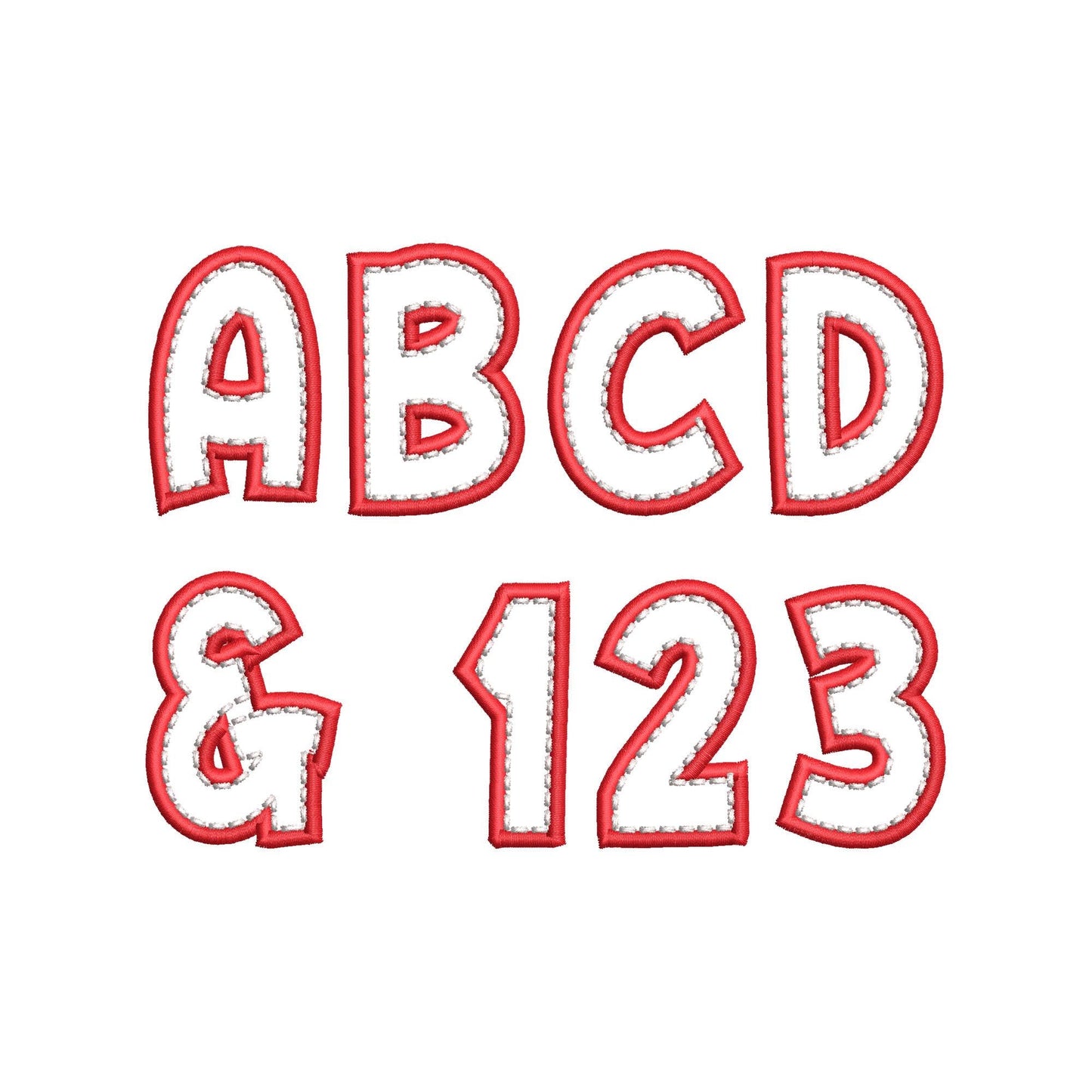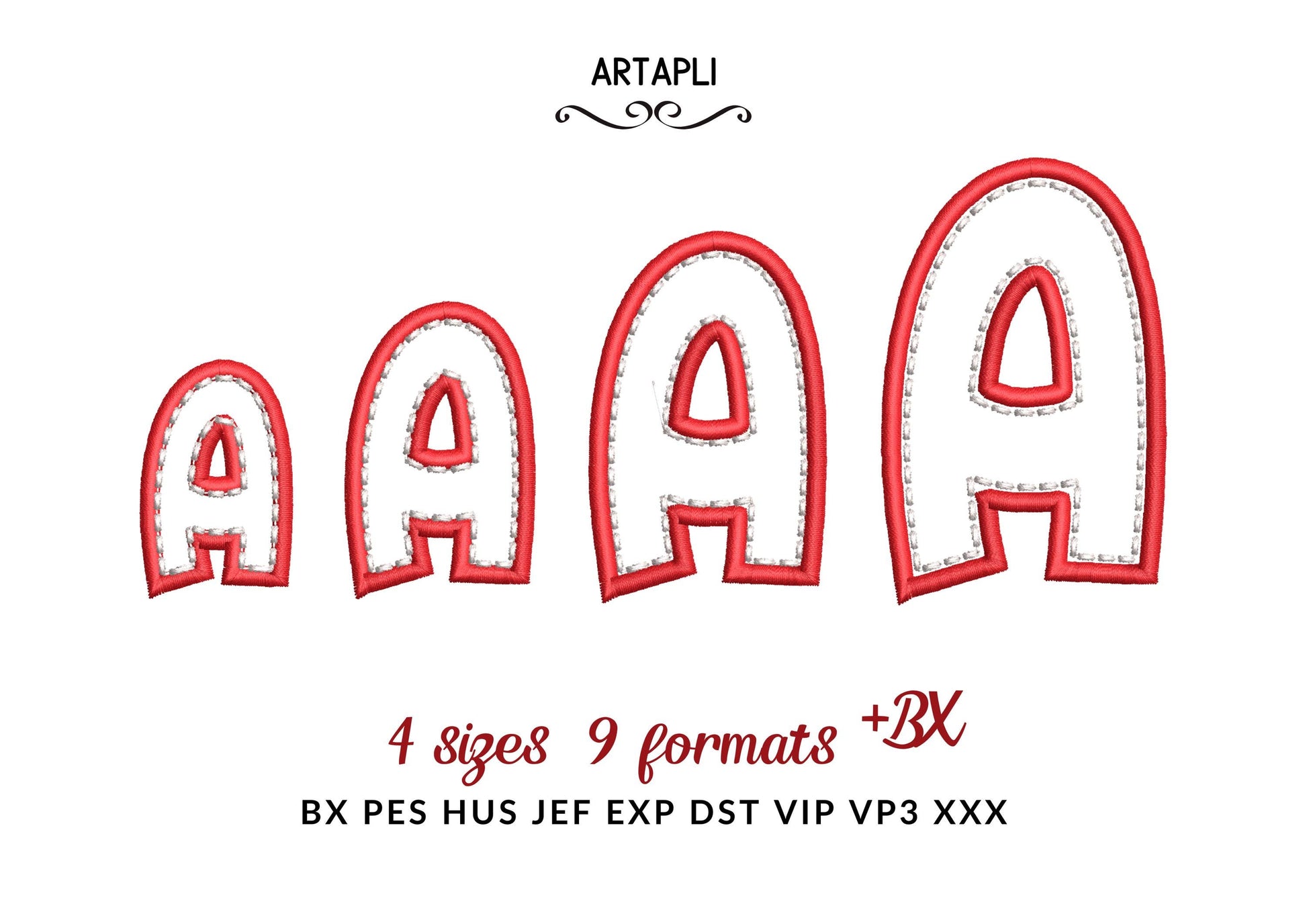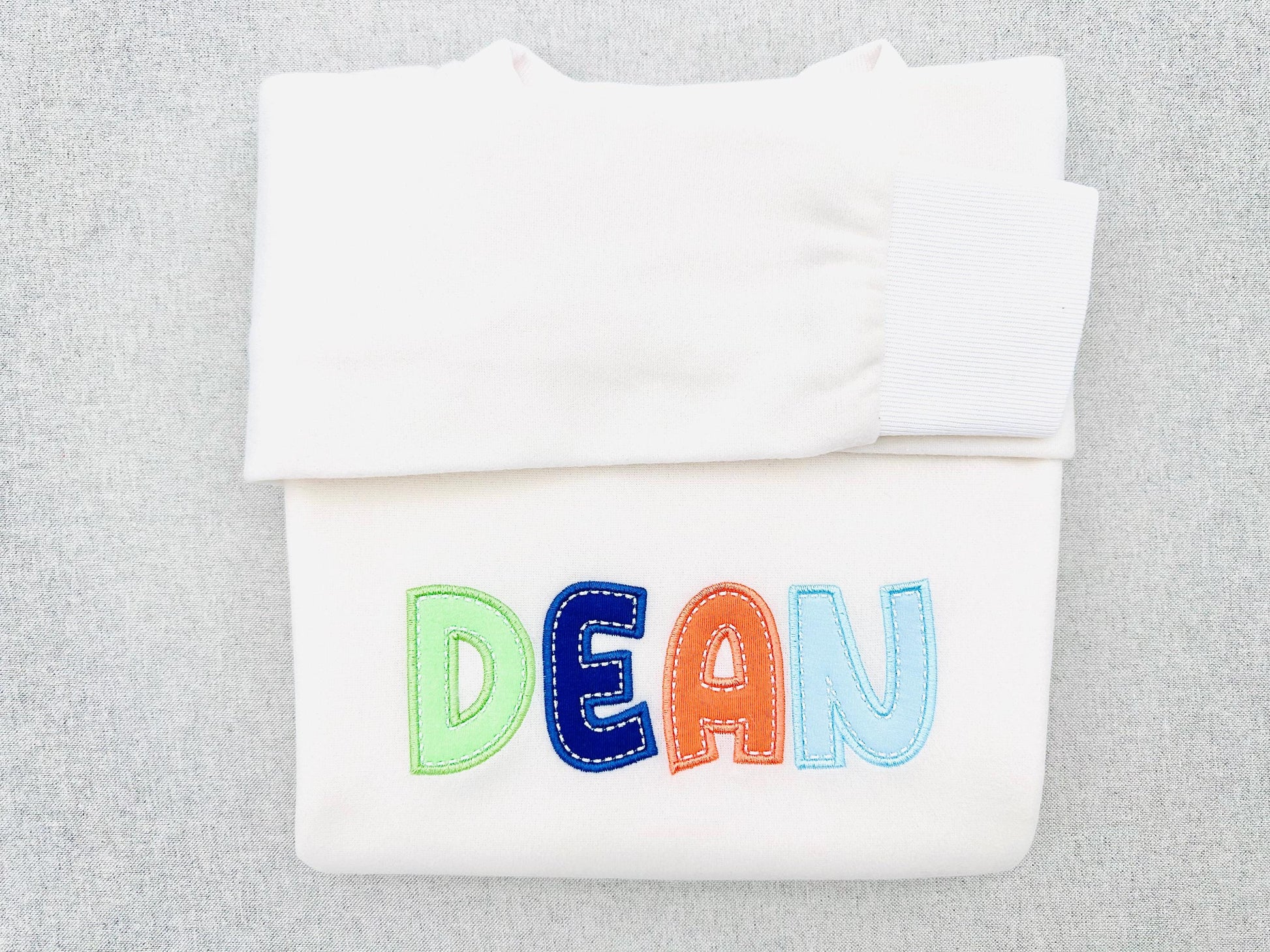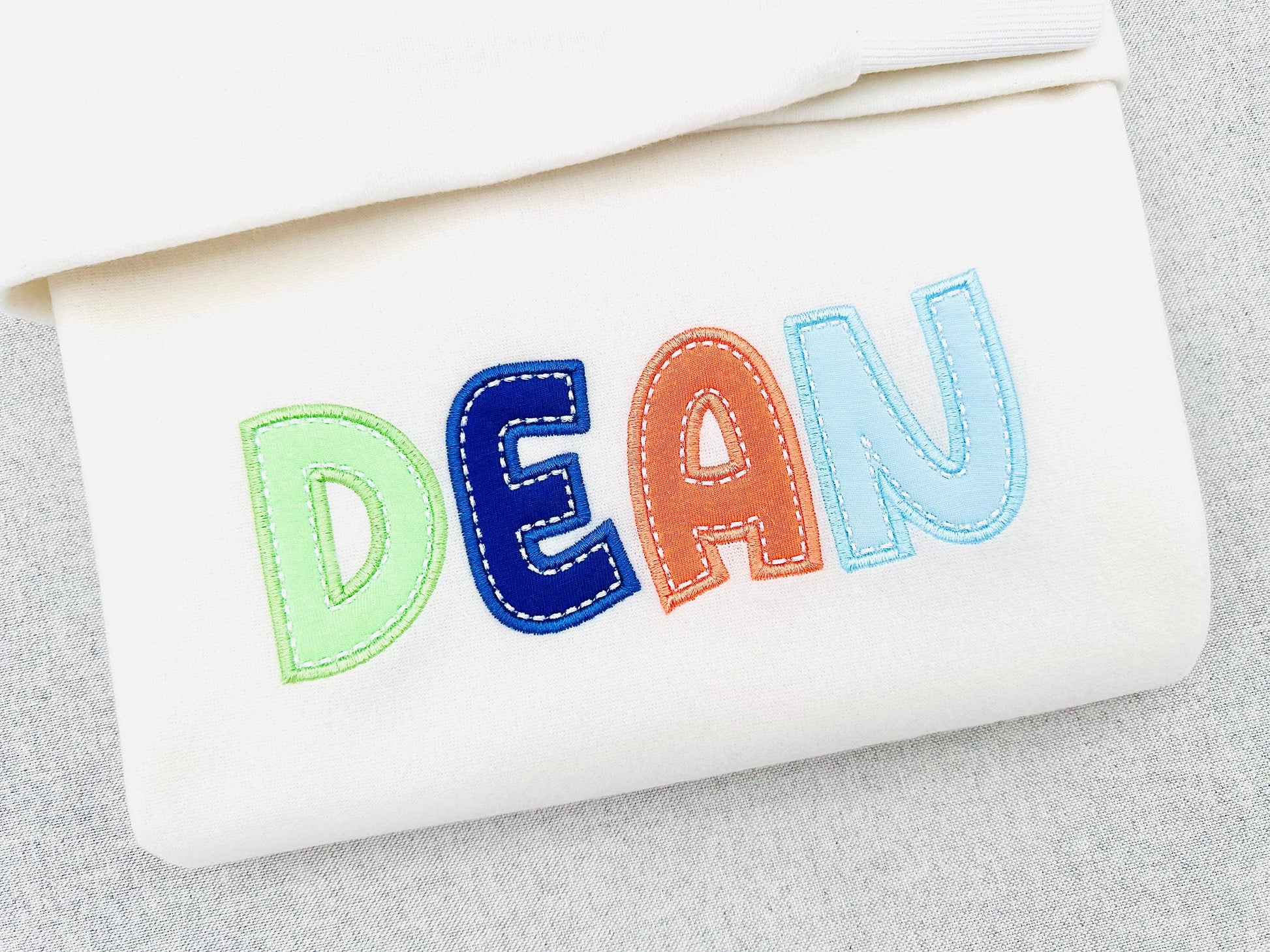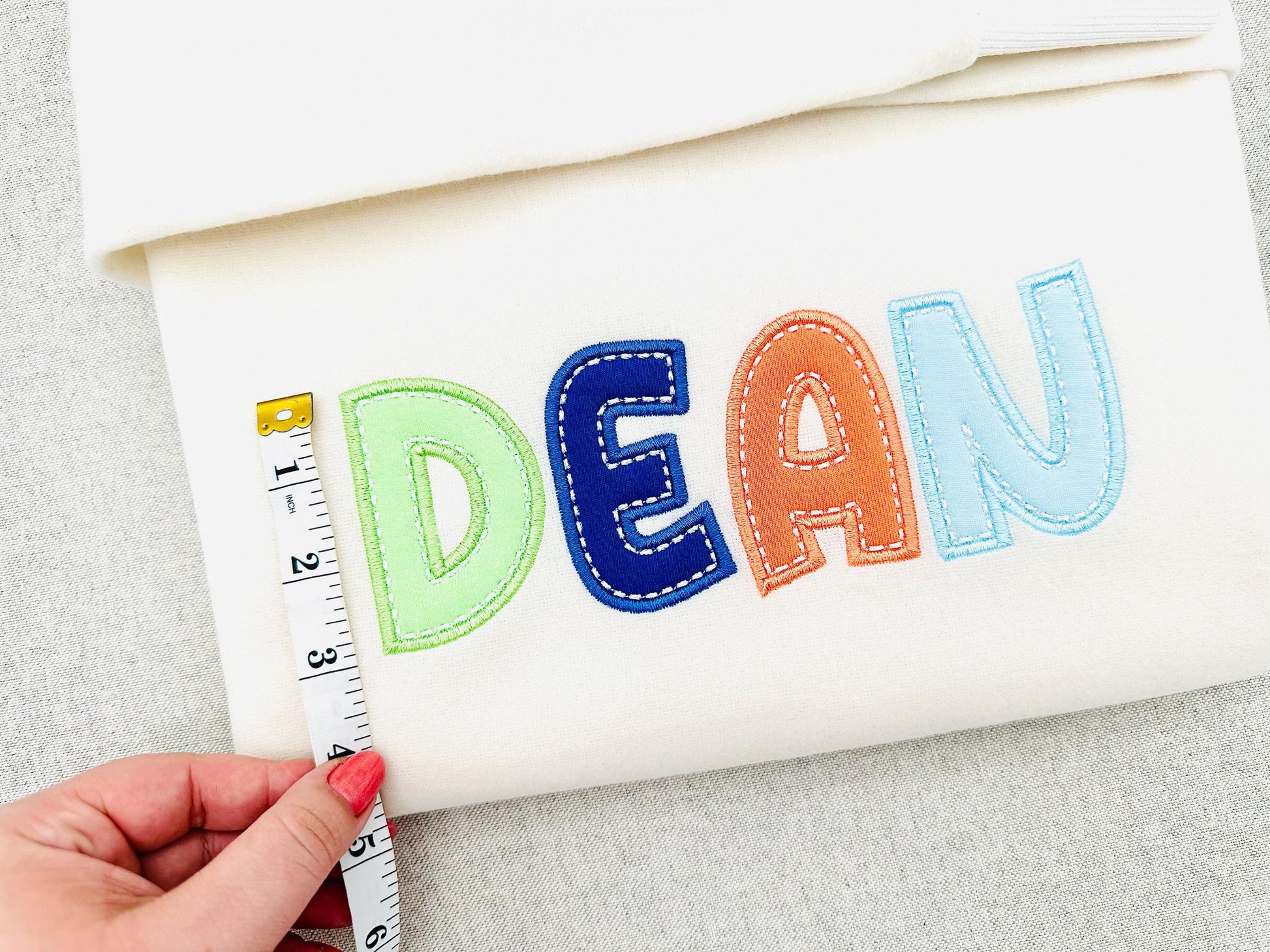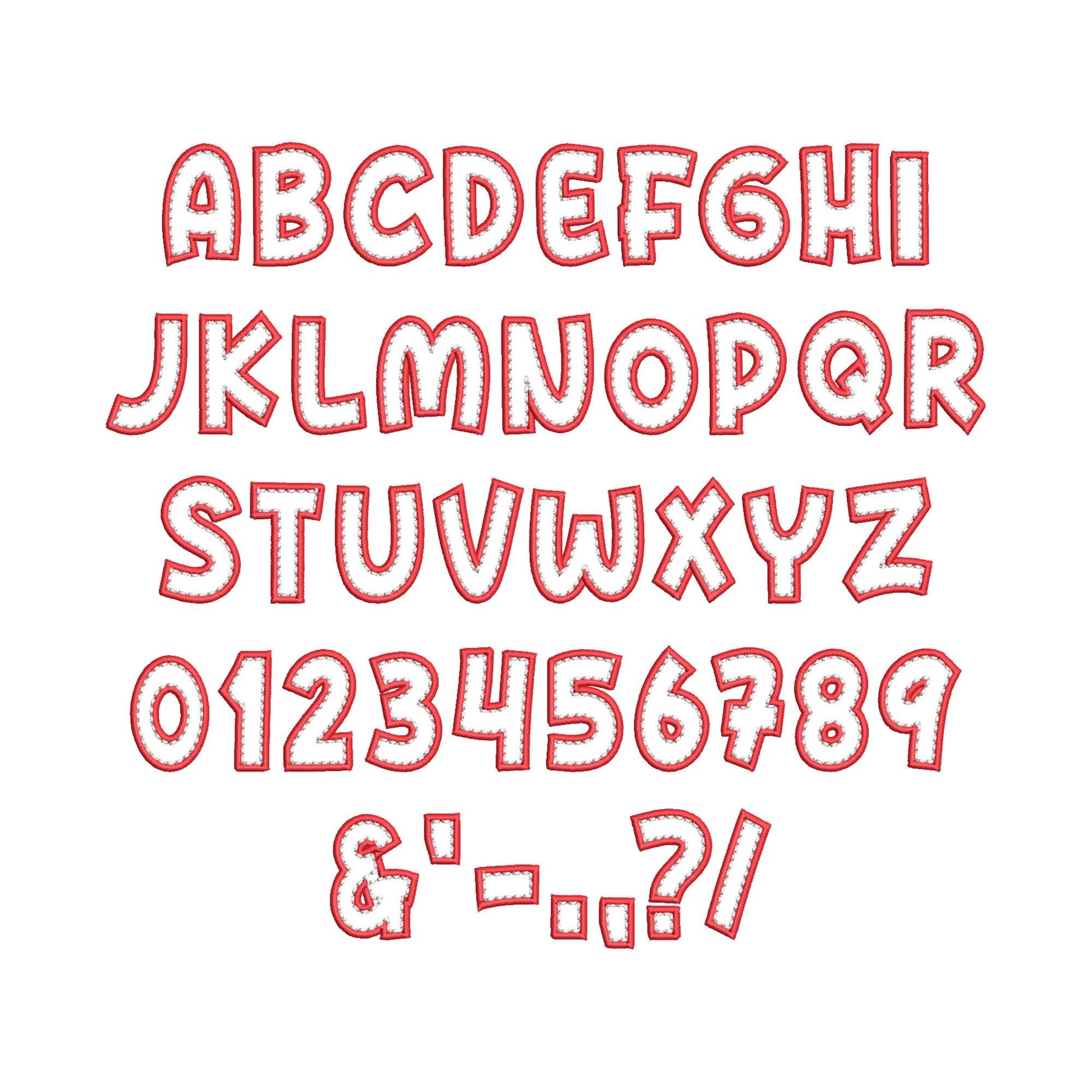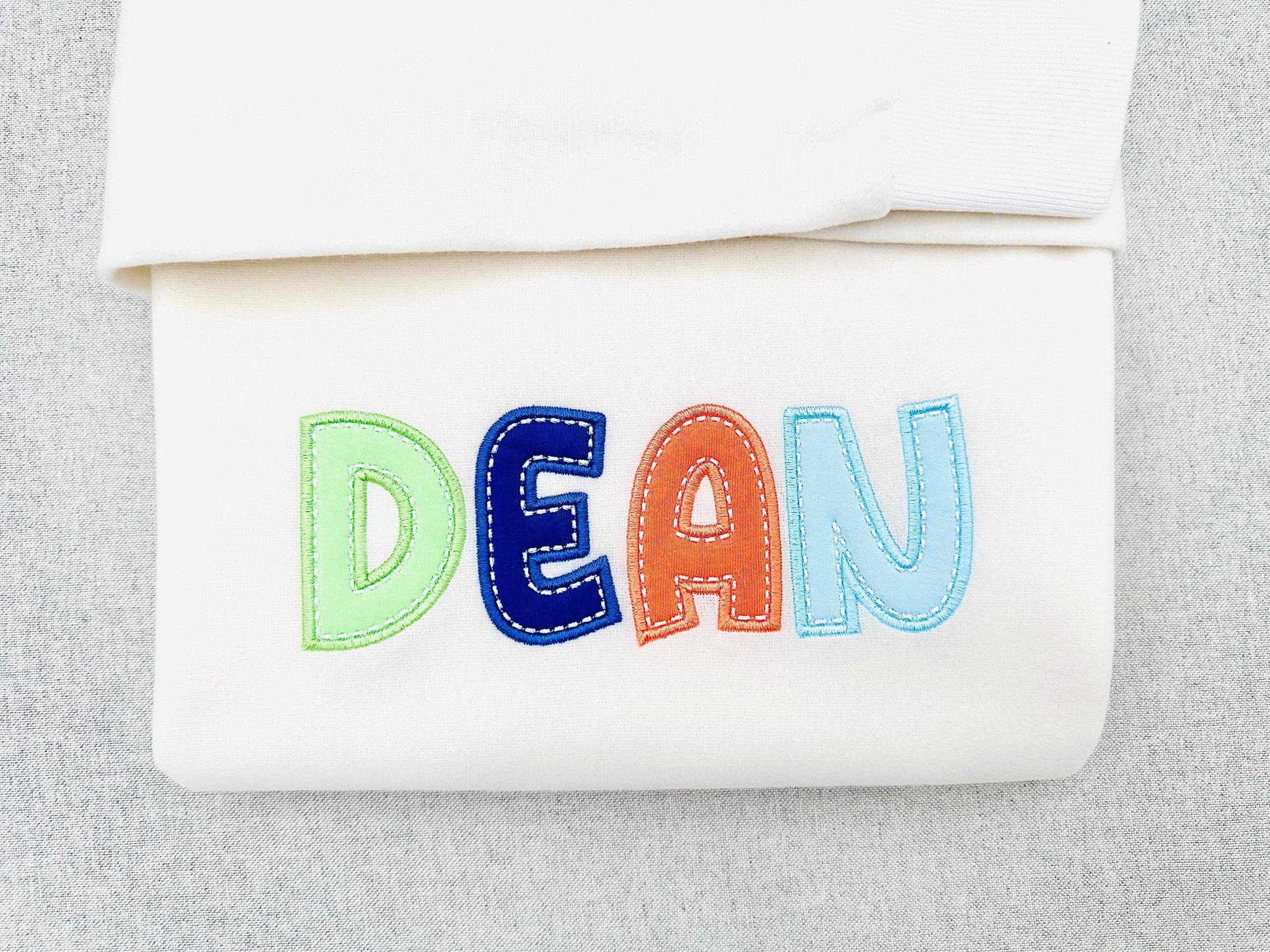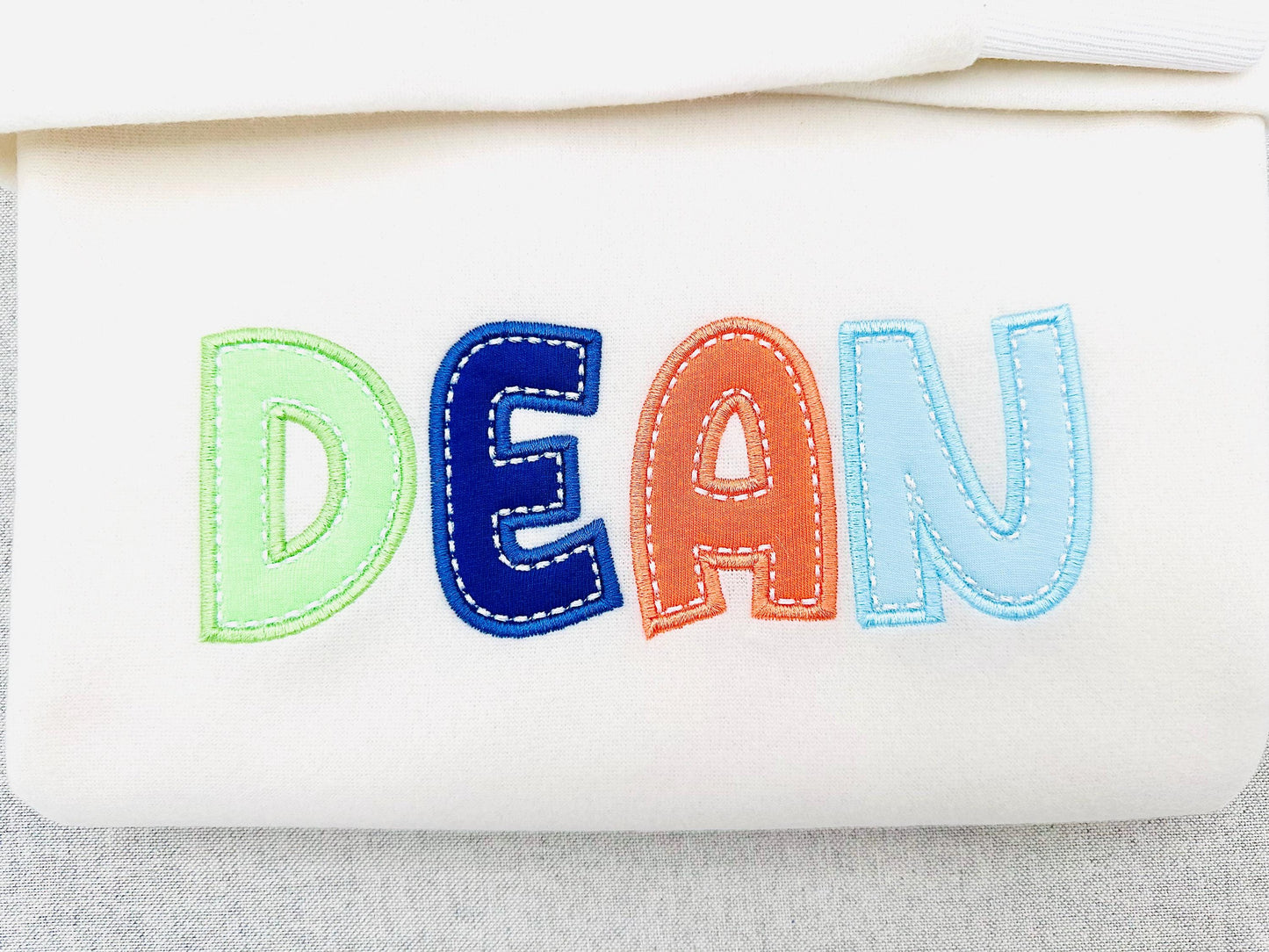
Applique Font Flutter
Or click to open the linkAn applique font with a wide satin outline and a hand-stitch outline for a handmade look. Great for initials, names and numbers on sweatshirts, pillows and bags.
The letters come in four sizes: 1.9, 2.4, 3 and 3.6 inches. Includes uppercase letters A-Z, numbers 0-9 and punctuation.
- Flutter applique font: uppercase letters A-Z, numbers 0-9 and punctuation